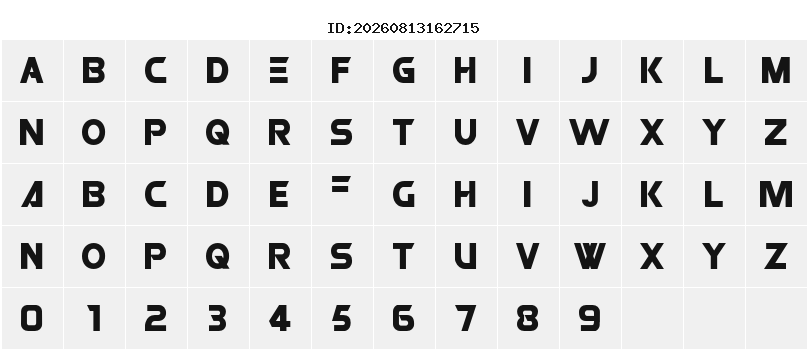
• Font Name: ROBO
• Full Font Name: ROBO
About ROBO.otf
ROBO.otf is a modern, elegant sans-serif font designed for ultimate readability and visual harmony. Perfect for branding, headlines, web design, and print materials.